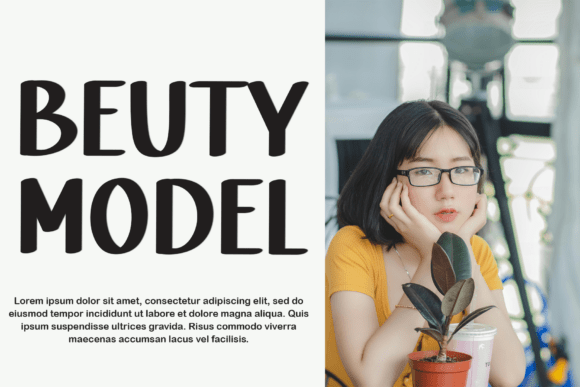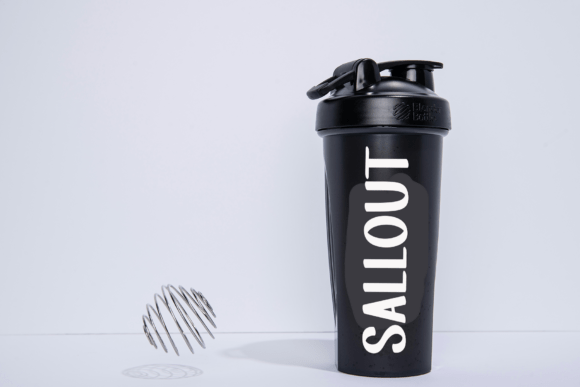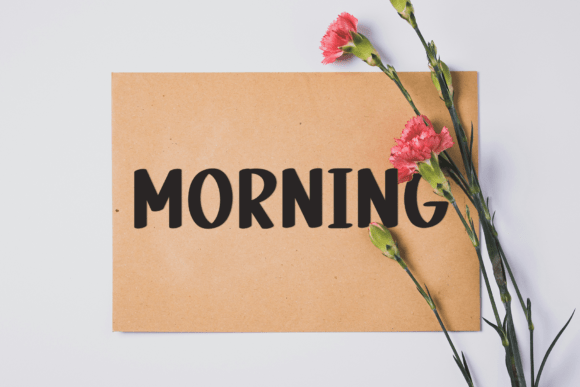
Introducing Handcraft Awesome Font: Elevate Your Designs with a Unique Touch
In the world of design, typography plays a crucial role in conveying messages, evoking emotions, and creating a lasting impression. For designers, crafters, and creative enthusiasts, finding the perfect font can be a daunting task. However, if you’re looking for a beautiful, eye-catching, and versatile font, look no further than Handcraft Awesome Font. This stunning font is designed with a soft, unique touch that sets it apart from other fonts, making it an ideal choice for a wide range of design projects.
The Distinctive Characteristics of Handcraft Awesome Font
Handcraft Awesome Font boasts distinctive strokes that give it a special character, making it both meaningful and versatile for future use. Its unique design ensures that your designs stand out from the crowd, capturing the attention of your audience. Whether you’re working on a logo, branding materials, crafts, or other creative projects, this font is sure to elevate your work.
A World of Creative Possibilities
One of the most significant advantages of Handcraft Awesome Font is its versatility. With a variety of characters at your disposal, you can experiment with different styles, layouts, and designs. This font is perfect for:
- Design projects: logos, branding materials, posters, and more
- Crafts: handmade cards, invitations, scrapbooking, and other paper crafts
- Creative works: illustrations, paintings, and digital art
The Benefits of Using Handcraft Awesome Font
By incorporating Handcraft Awesome Font into your designs, you can:
- Enhance your designs with a unique and eye-catching touch
- Make your work more appealing to a wide range of audiences
- Stand out in a crowded design landscape
- Explore new creative possibilities and experiment with different styles
Why Designers and Crafters Love Handcraft Awesome Font
Designers and crafters who have used Handcraft Awesome Font rave about its natural, effortless style. This font is perfect for those who want to add a personal touch to their work, creating a sense of warmth and approachability. With Handcraft Awesome Font, you can:
- Create stunning visual content that resonates with your audience
- Develop a consistent brand identity across different platforms
- Explore new design possibilities and push the boundaries of your creativity
In conclusion, Handcraft Awesome Font is an exceptional choice for designers, crafters, and creative enthusiasts looking to elevate their work with a unique and eye-catching touch. Its distinctive strokes, versatility, and compatibility make it an ideal font for a wide range of design projects, crafts, and creative works. With Handcraft Awesome Font, you can unlock new creative possibilities, enhance your designs, and make a lasting impression on your audience.